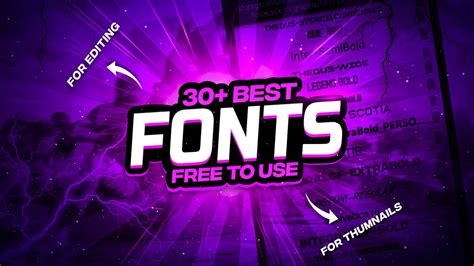
Best Font For Thumbnails. Impact ( free) one of the most popular fonts for thumbnail text, impact is a simple but bold font for youtube videos. Web 17 best fonts for youtube thumbnails that look fabulous.
Select a font that aligns with the overarching theme or subject of your content. Web 17 best fonts for youtube thumbnails that look fabulous. Web 12 best fonts for thumbnails in your youtube videos | creative market. Web how to choose the best fonts for thumbnails? We made sure to handpick fonts. For youtube channels that showcase lifestyle videos, you can use a font like fonseca rounded for your travel. It is a free font and can be adjusted according to your taste to make an impact on your audience. This a very popular youtube font logo, often used by many youtubers in their videos, but also in their thumbnails. Impact ( free) one of the most popular fonts for thumbnail text, impact is a simple but bold font for youtube videos. Even in small sizes, the font.
For youtube channels that showcase lifestyle videos, you can use a font like fonseca rounded for your travel. Even in small sizes, the font. Web how to choose the best fonts for thumbnails? We made sure to handpick fonts. Web 12 best fonts for thumbnails in your youtube videos | creative market. Impact ( free) one of the most popular fonts for thumbnail text, impact is a simple but bold font for youtube videos. Web 17 best fonts for youtube thumbnails that look fabulous. This a very popular youtube font logo, often used by many youtubers in their videos, but also in their thumbnails. It is a free font and can be adjusted according to your taste to make an impact on your audience. Select a font that aligns with the overarching theme or subject of your content. For youtube channels that showcase lifestyle videos, you can use a font like fonseca rounded for your travel.